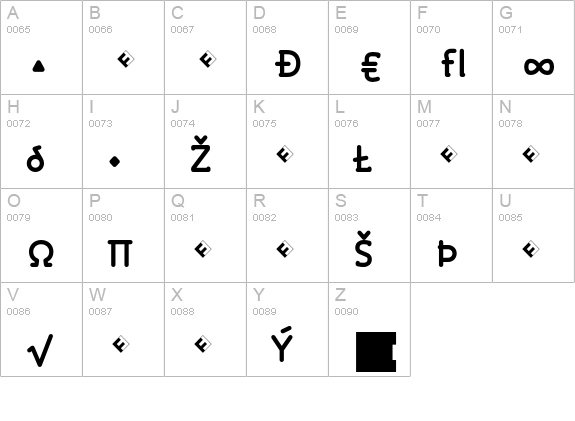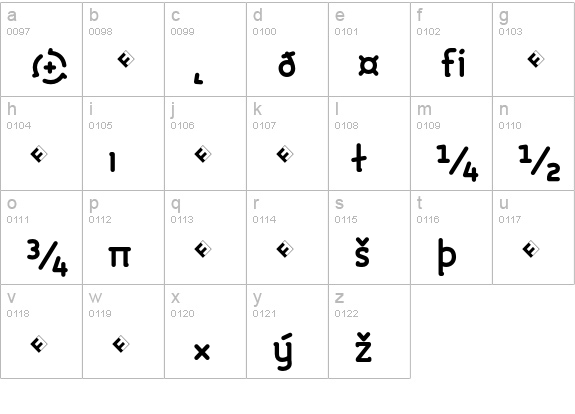
Roice-BoldExpert is a beautifully crafted font that exudes confidence and sophistication. Its bold and expertly designed letterforms make it perfect for creating eye-catching headings, titles, and logos. The clean lines and strong presence of this font make it a versatile choice for a wide range of design projects. And the best part? Roice-BoldExpert is available for free download at FontsMarket.com. This means you can add this stunning font to your collection without any cost, making it an excellent choice for both personal and commercial use. Don't miss out on the opportunity to elevate your designs with the timeless elegance of Roice-BoldExpert!